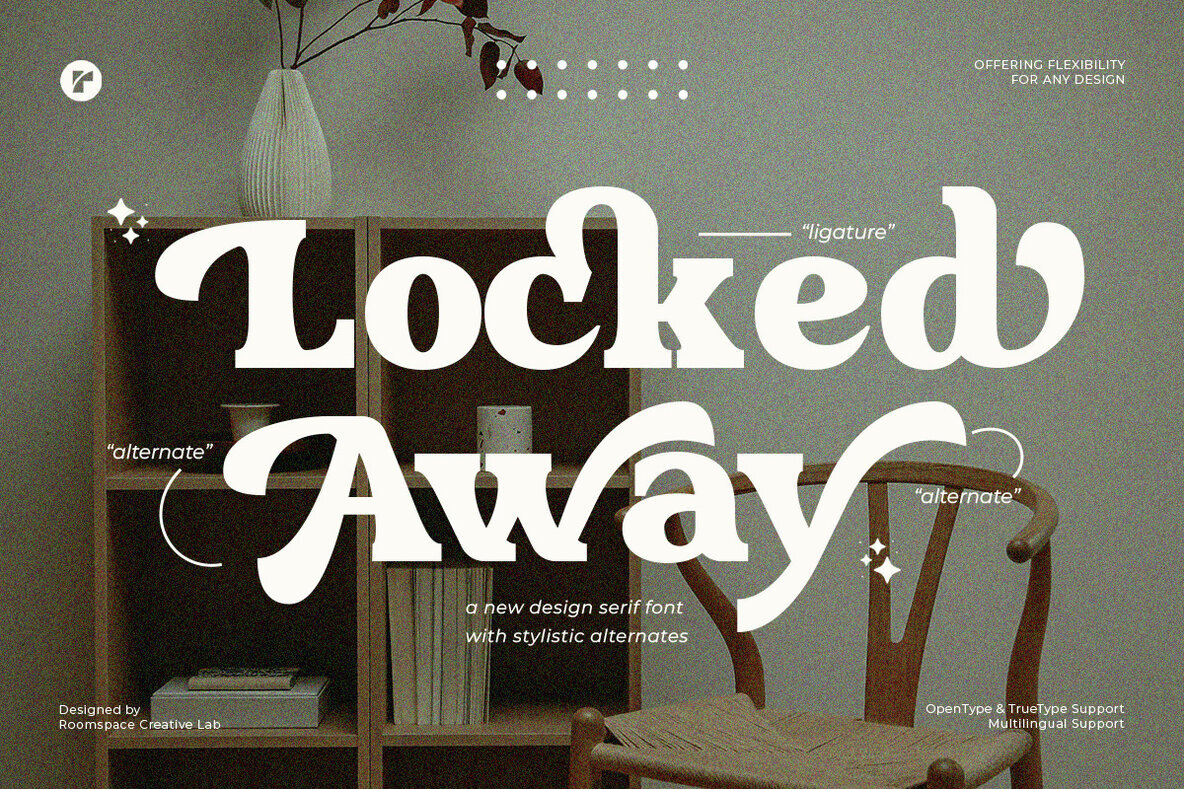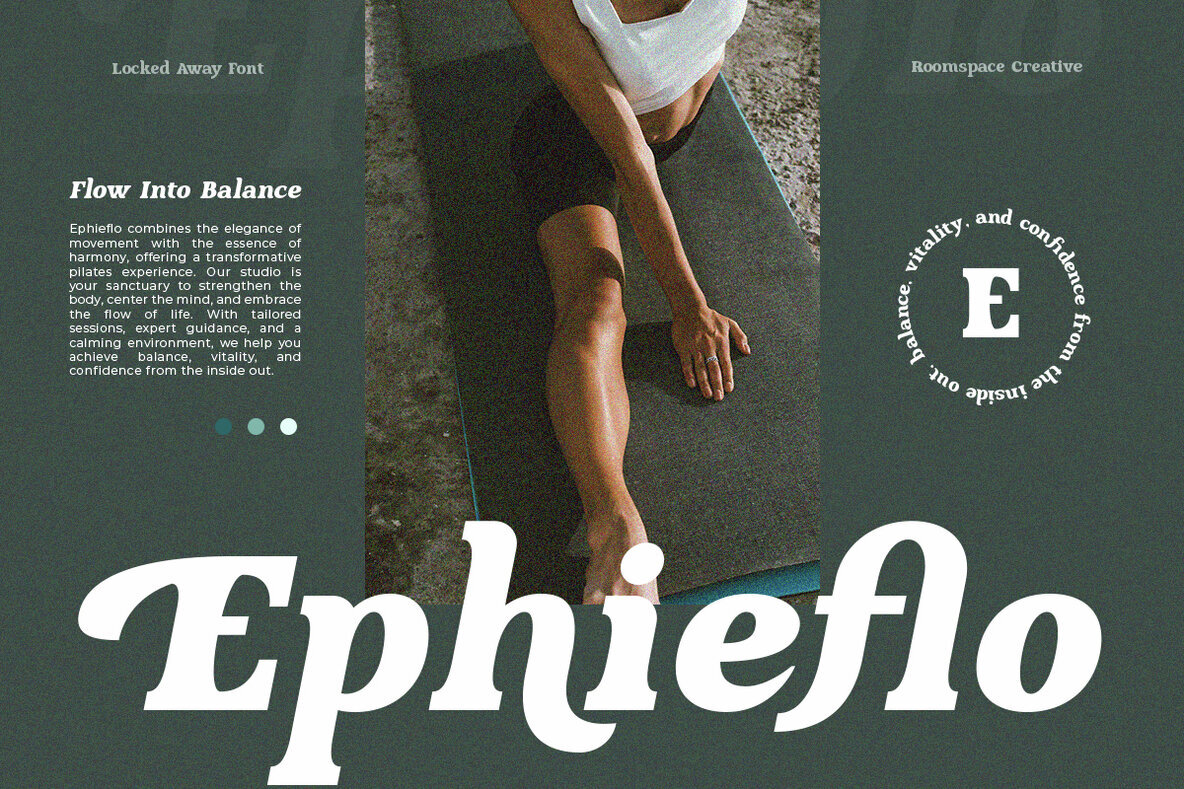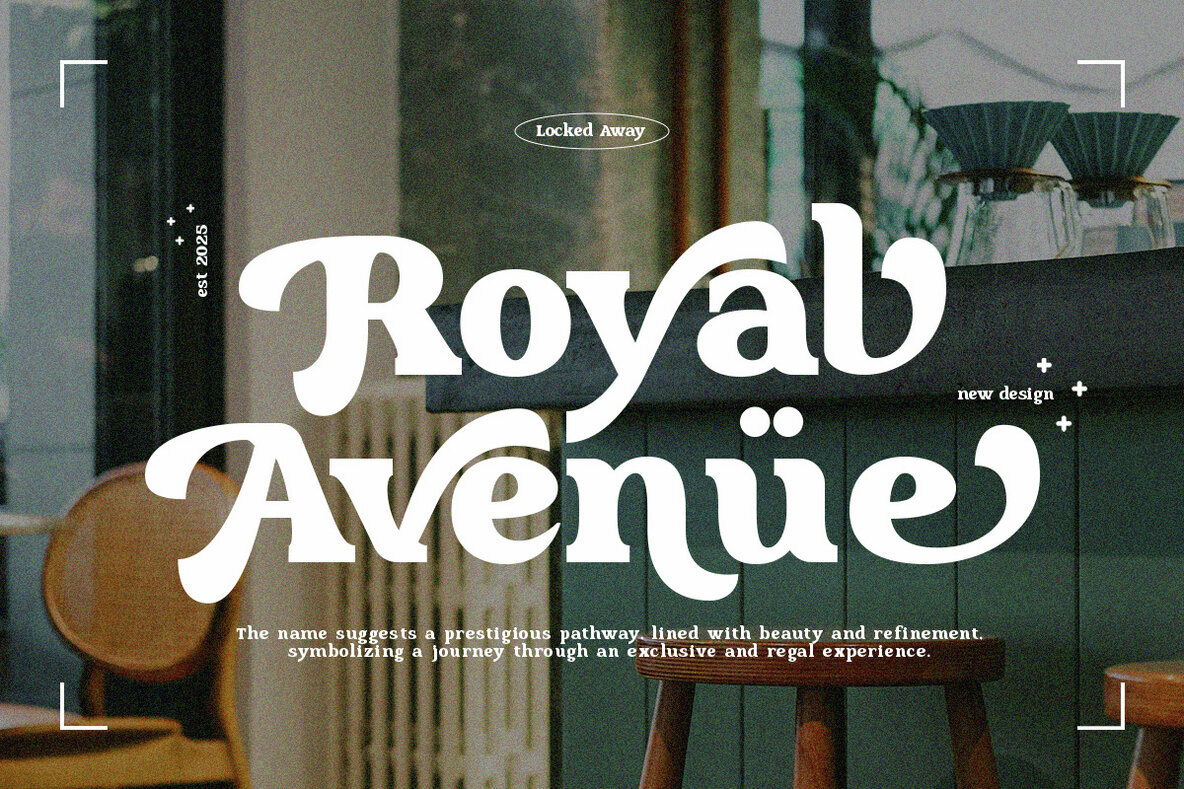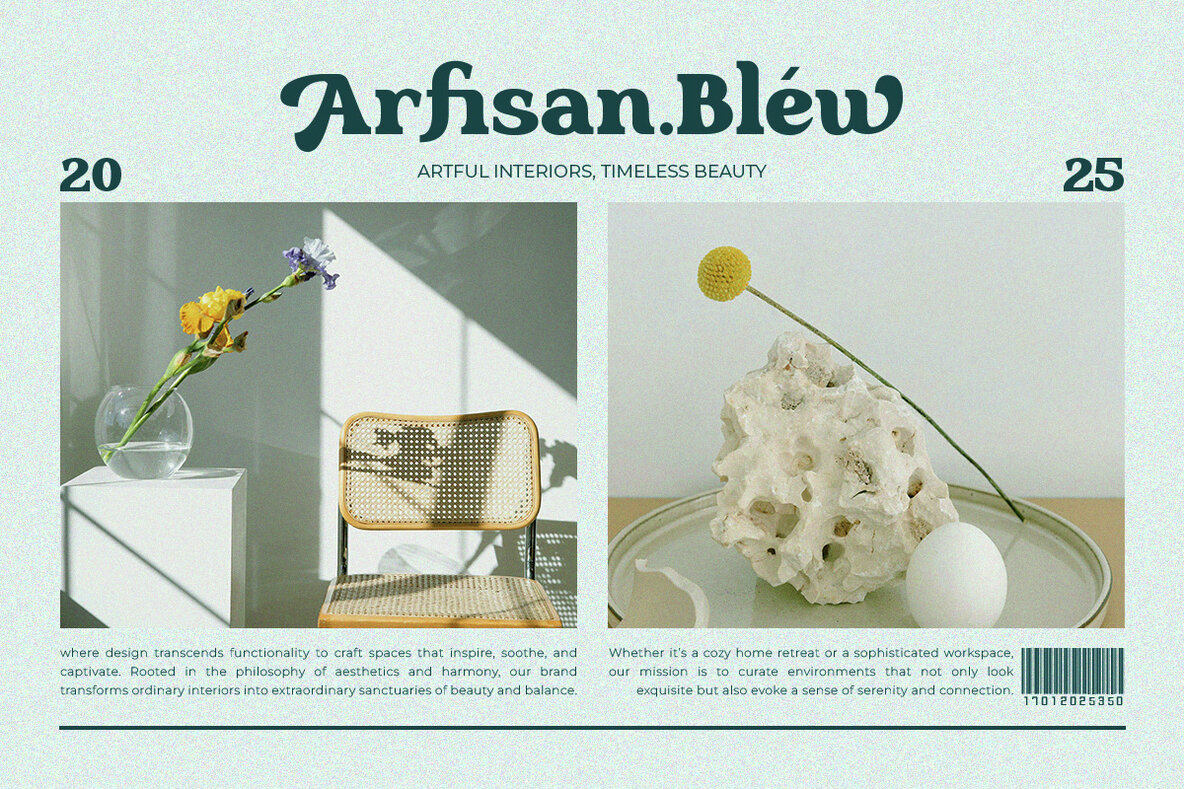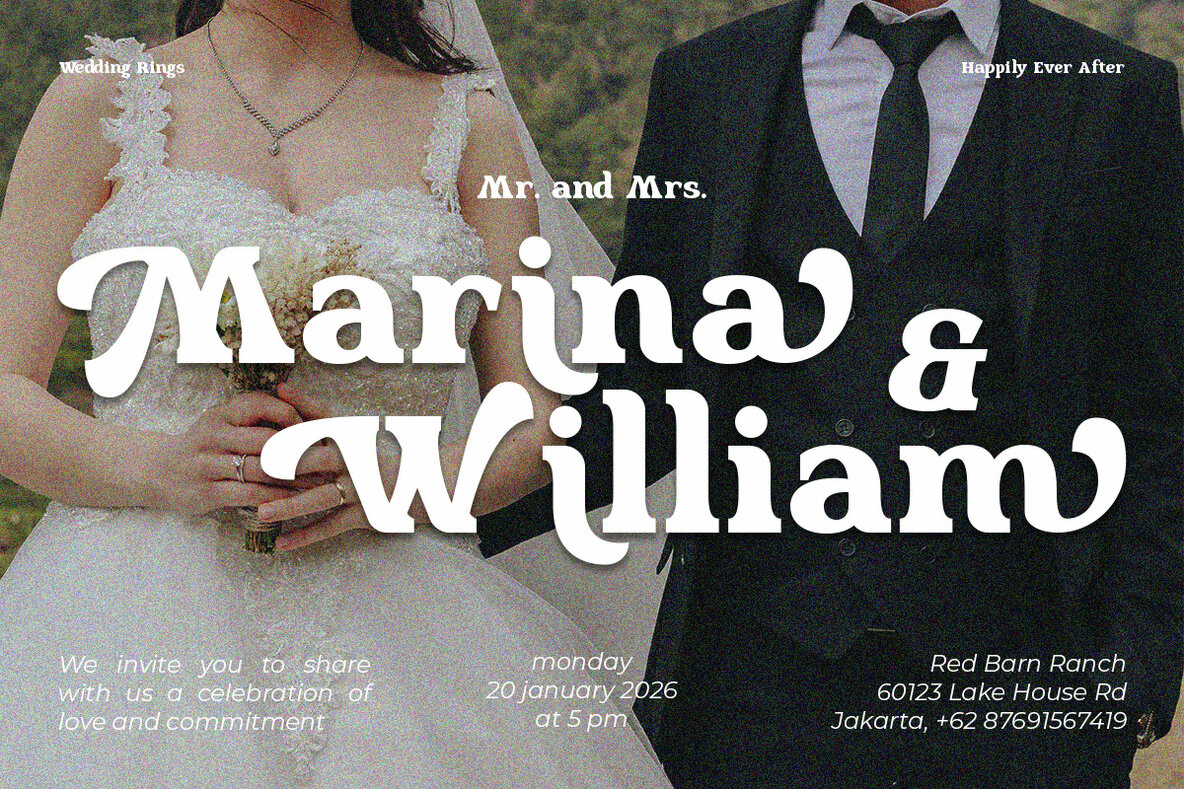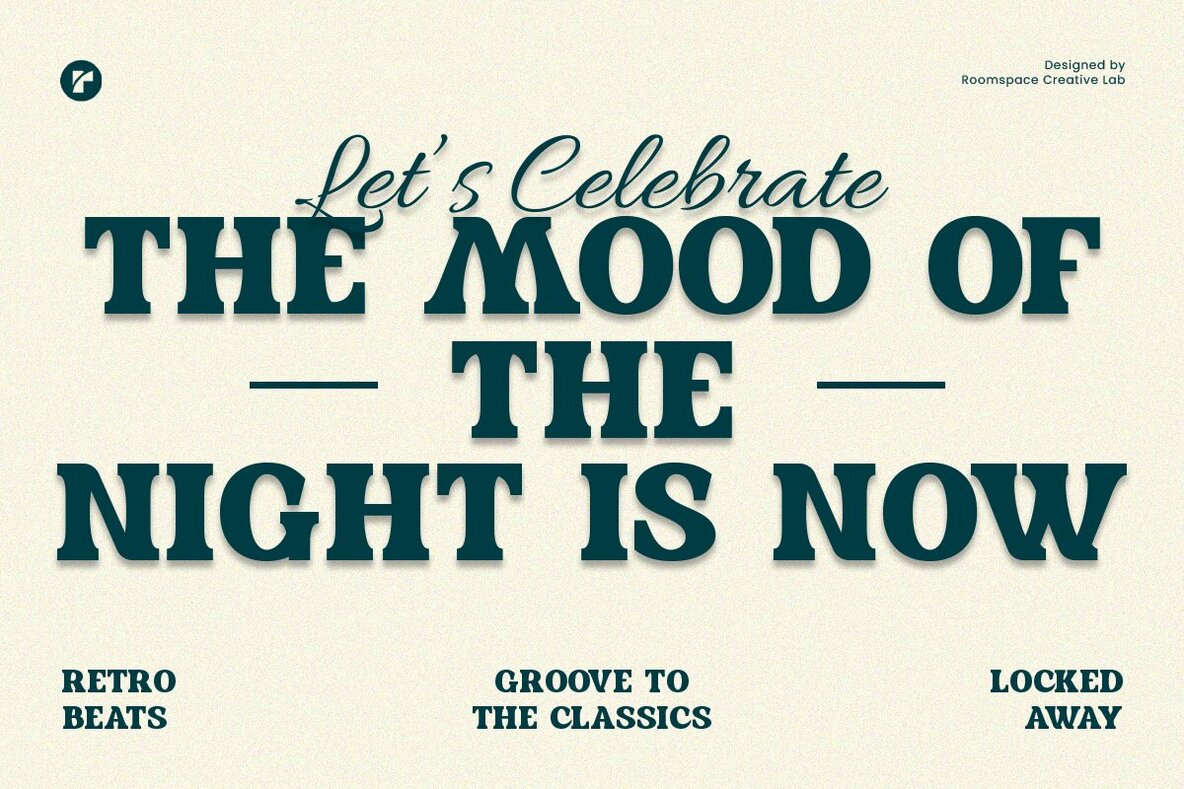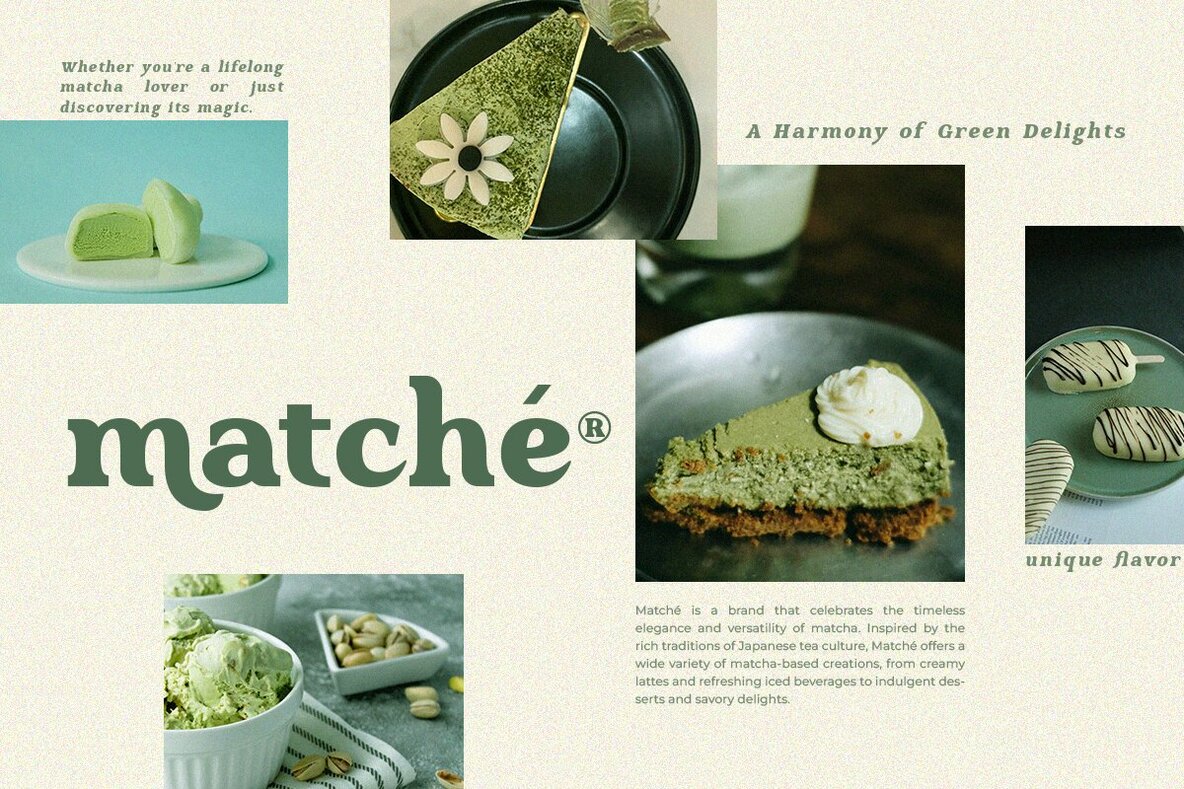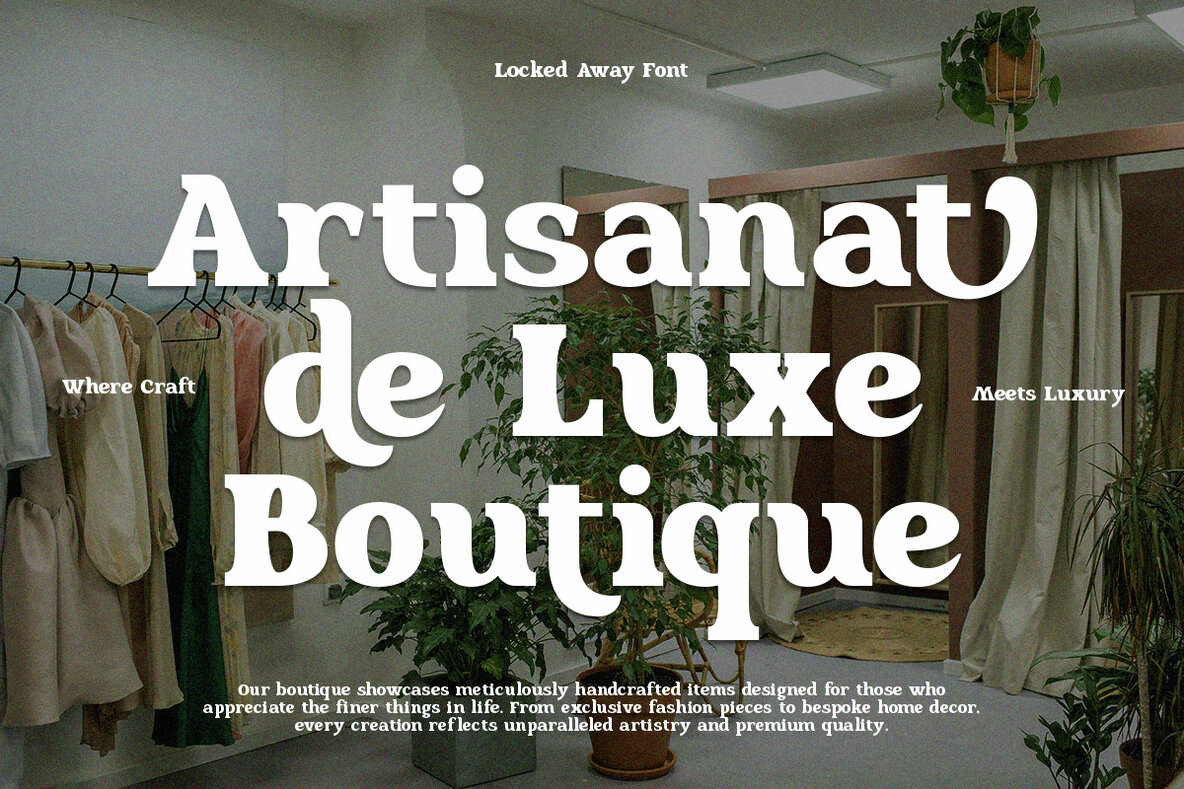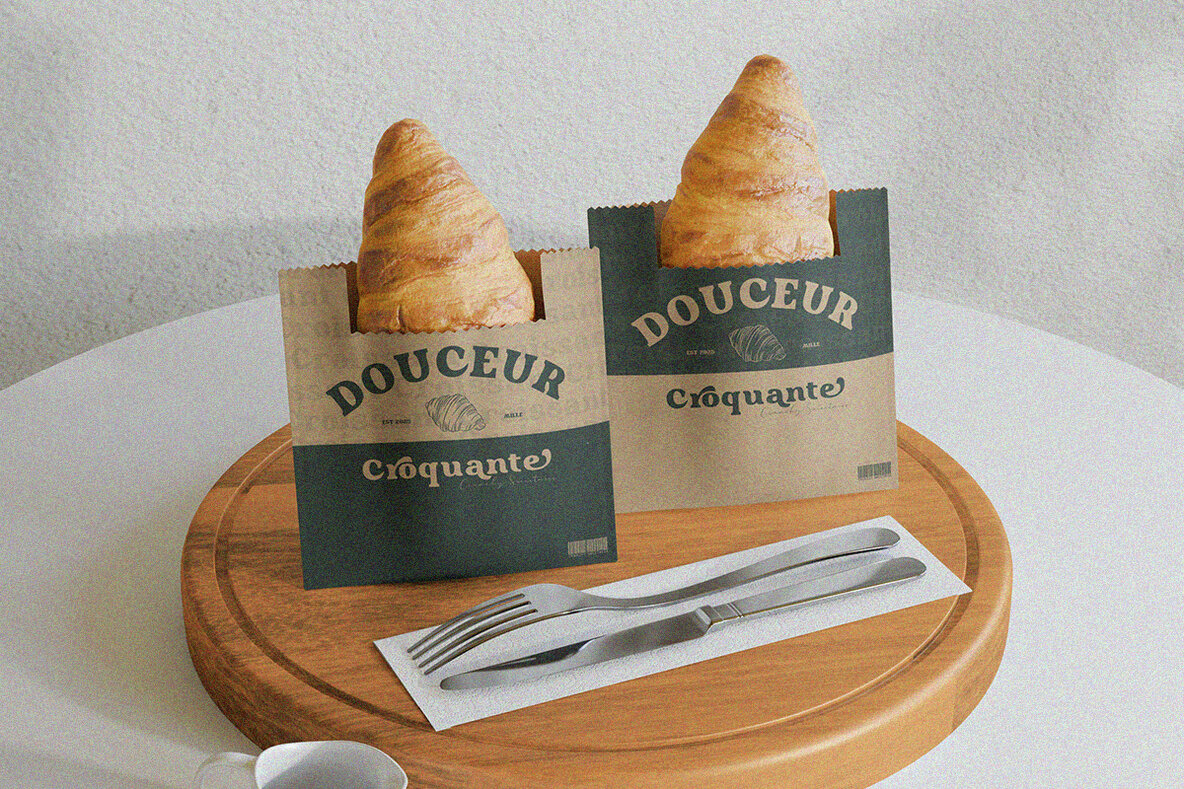
Locked Away Font
Locked Away is a contemporary serif font that gracefully merges sophistication with a distinctive charm. It features a complete set of swashes and tails that add an elegant, creative touch to each character. These unique stylistic elements integrate seamlessly into various designs, providing endless layout possibilities and encouraging creative experimentation. Whether using the standard character set or exploring ornamental alternates, Locked Away ensures impactful typography in both uppercase and lowercase forms.
Ideal for modern logo and brand designs, luxurious product packaging, striking display text, and elegant wedding invitations, Locked Away is versatile enough to enhance website headers and more. Its clean yet artistic aesthetic ensures prominence in any context, making your designs truly unforgettable. The font supports uppercase and lowercase characters, numbers, punctuation, and includes multilingual support. It's compatible with both PC and Mac, offering simple installation for an effortless user experience.